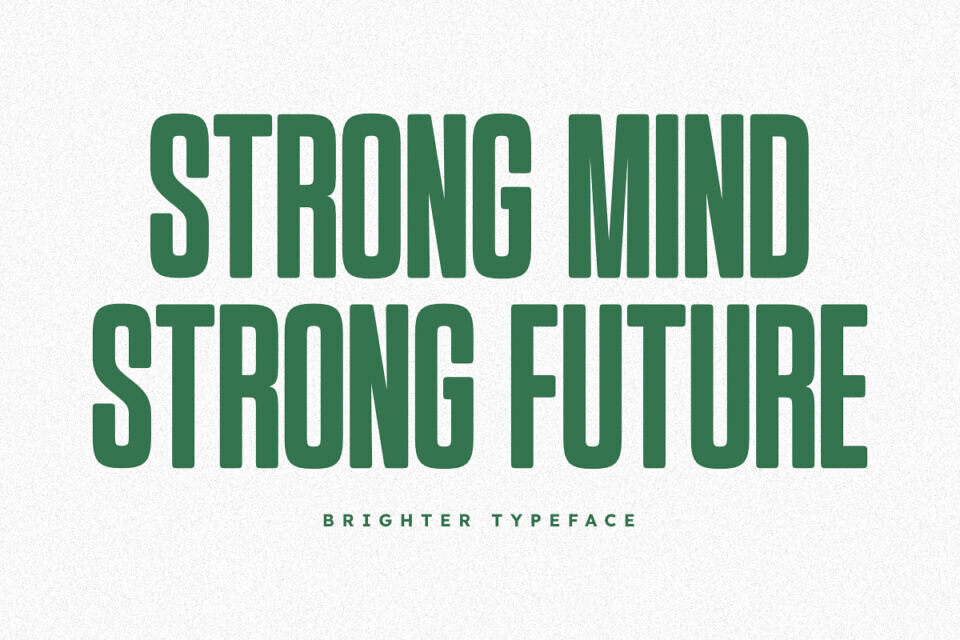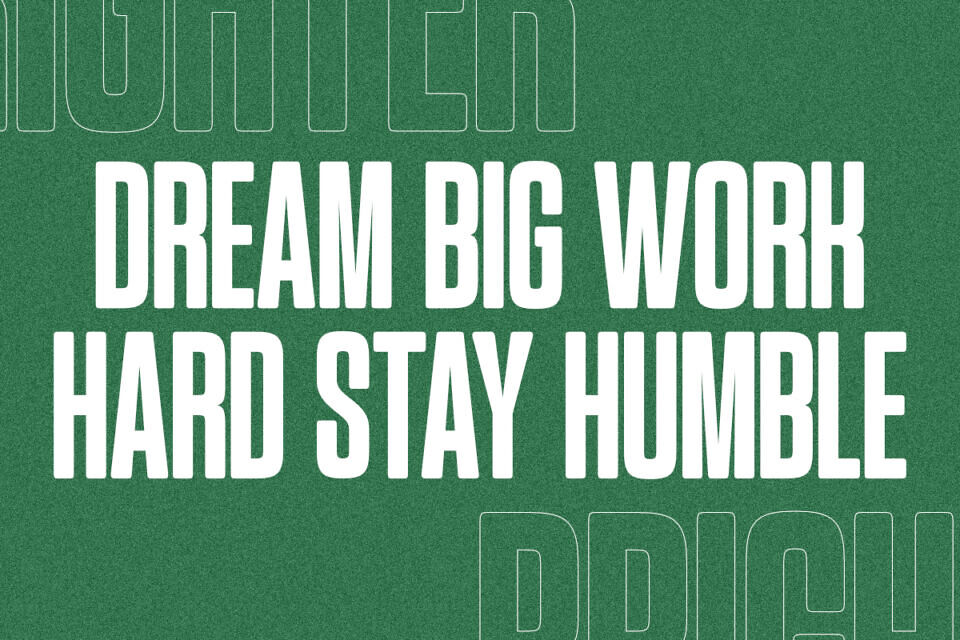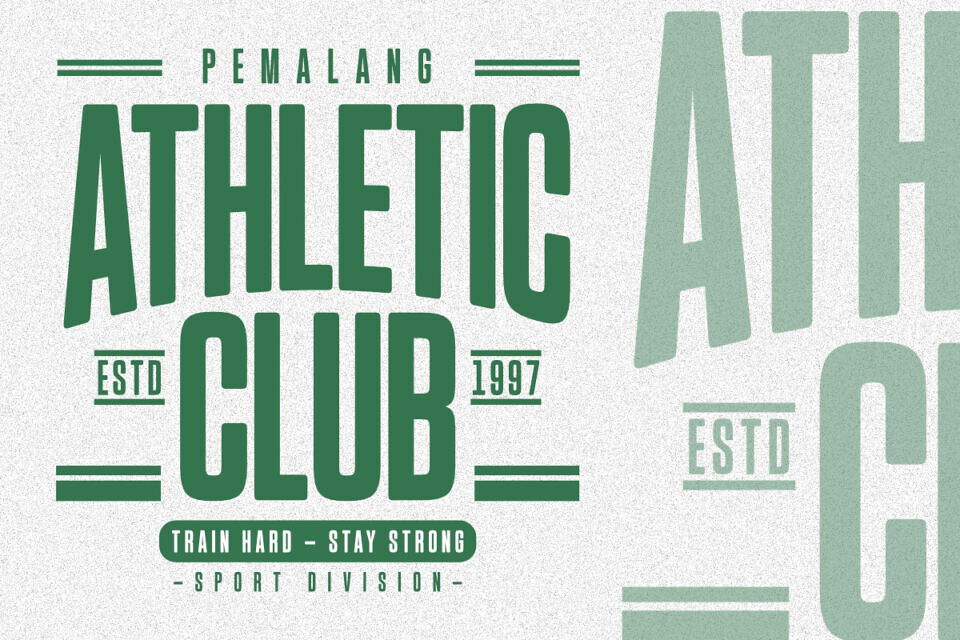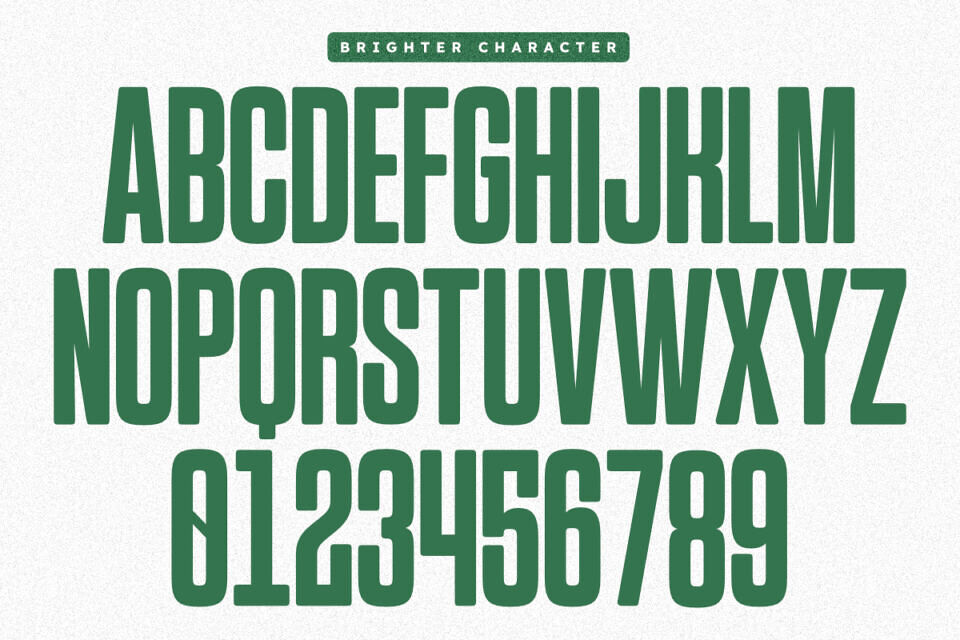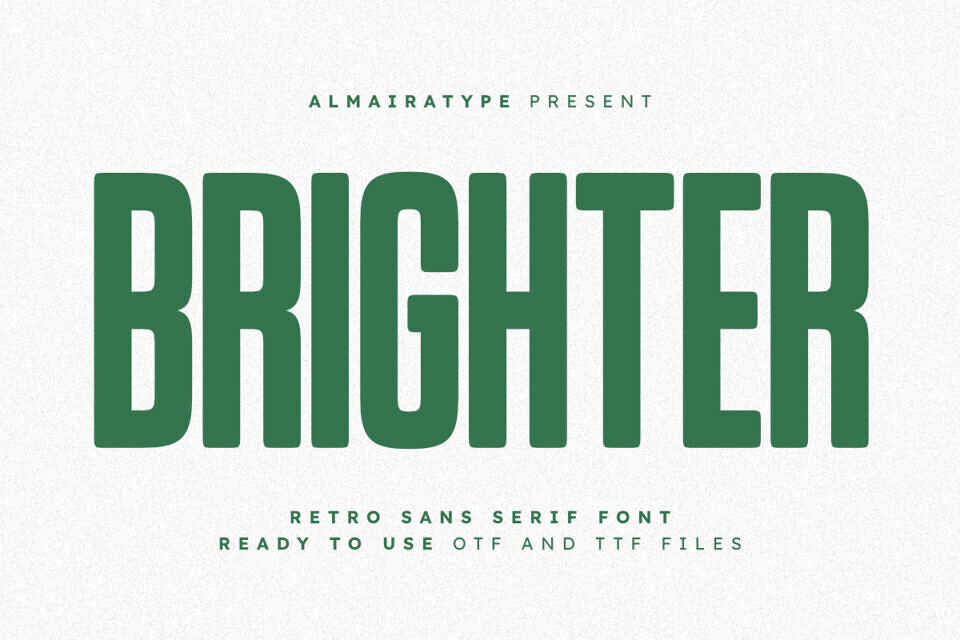
Brighter Font
Brighter is a bold and versatile retro sans serif font that effortlessly captures the nostalgic charm of vintage aesthetics while maintaining a clean, modern edge. Designed with a tall and solid structure, this typeface commands attention, making it the perfect choice for graphic designers, clothing brands, and Print on Demand (POD) entrepreneurs looking for high-impact visuals.
Brighter offers a stylish and readable font perfect for various design projects, from modern tees to vintage-inspired apparel. Its rounded edges evoke a classic feel, making it great for crafters using cutting machines. With its unique presence, Brighter is ideal for headlines, posters, and merchandise, elevating your creative work with a warm and approachable touch.